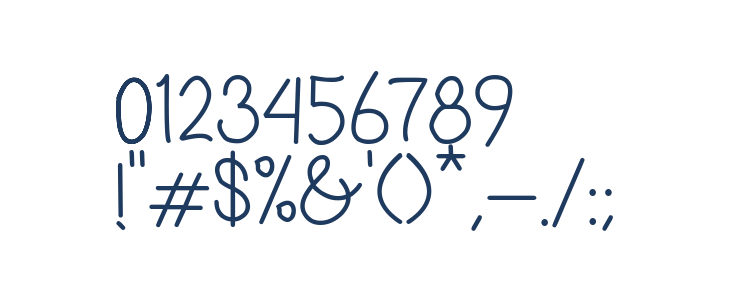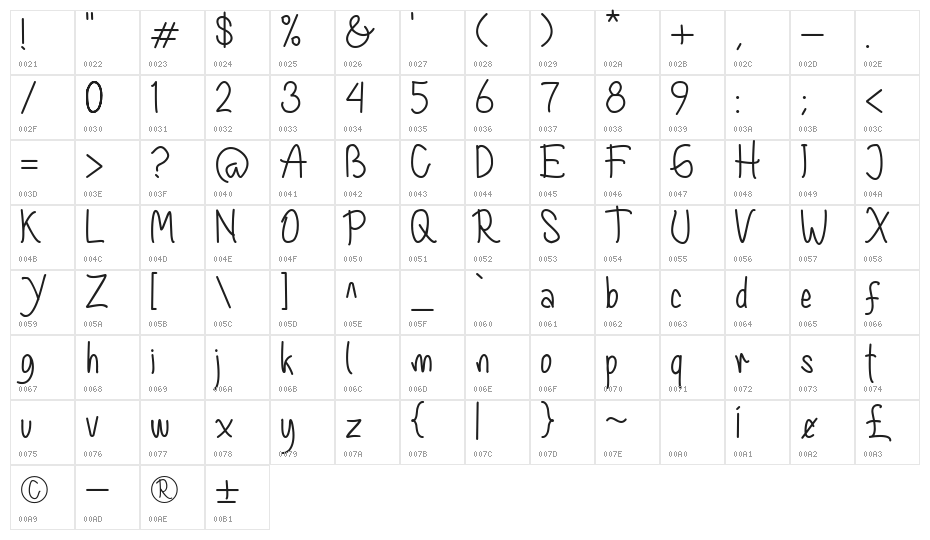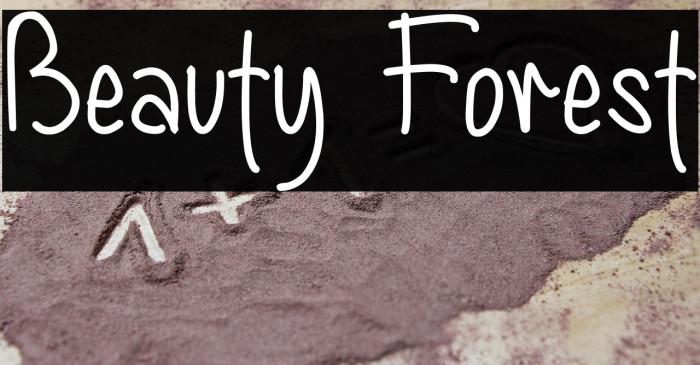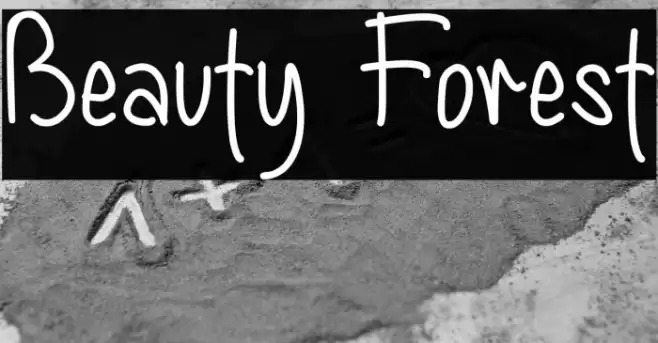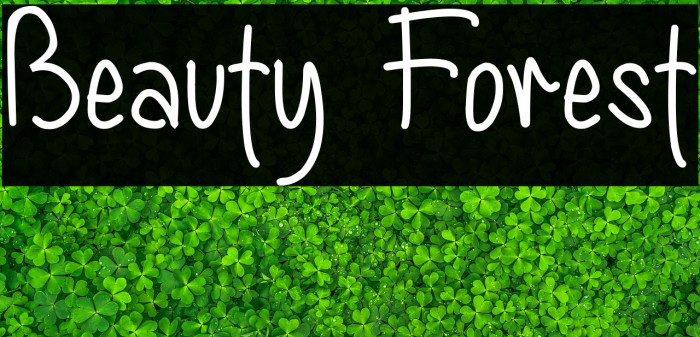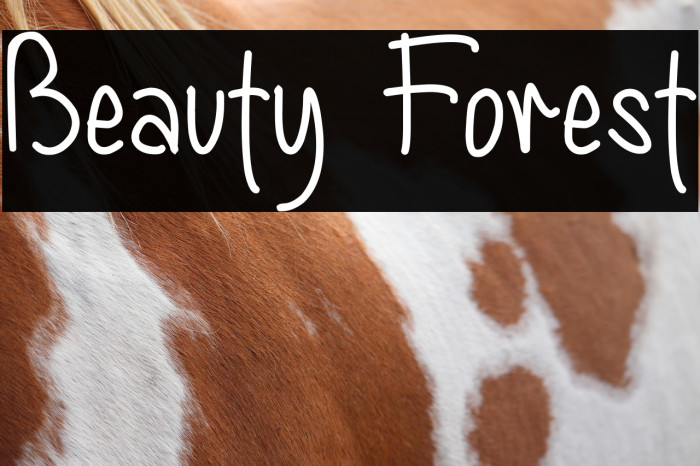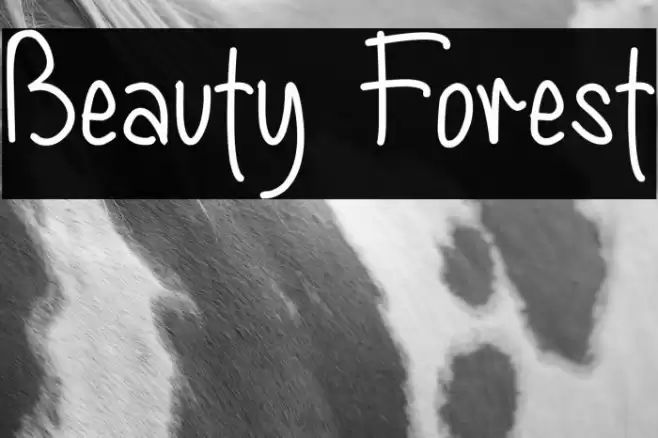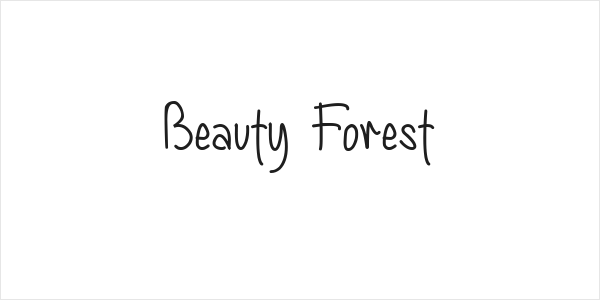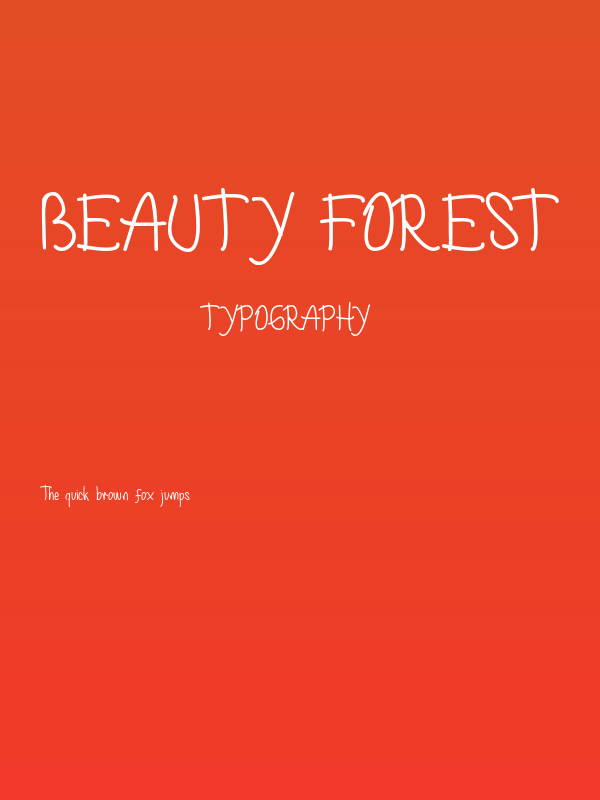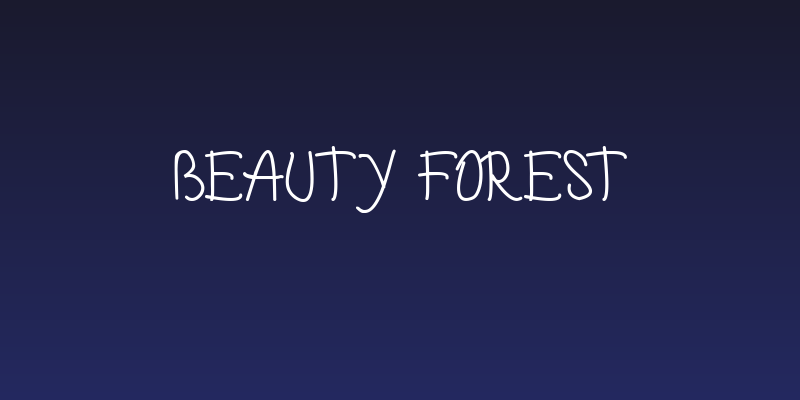
Beauty Forest Font
Beauty Forest Description
This font features a playful and casual handwritten style, characterized by its smooth, flowing lines and slightly irregular letterforms. The uppercase and lowercase letters maintain a consistent height, giving it a uniform appearance while still retaining a touch of whimsy. The numerals and special characters follow the same design principles, ensuring a cohesive look across all glyphs. Its informal nature makes it ideal for projects that require a personal touch, such as greeting cards, invitations, or children's book illustrations. The font's legibility and charm make it suitable for both digital and print media.
| Proposed Projects | Greeting cards, invitations, children's books, personal branding. |